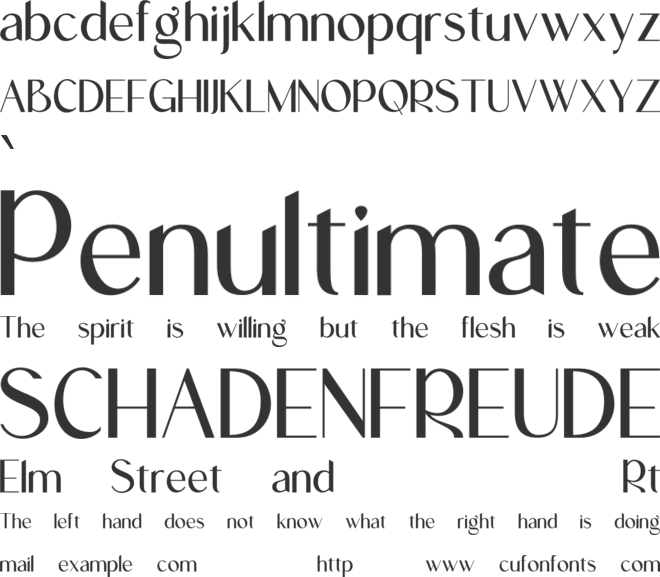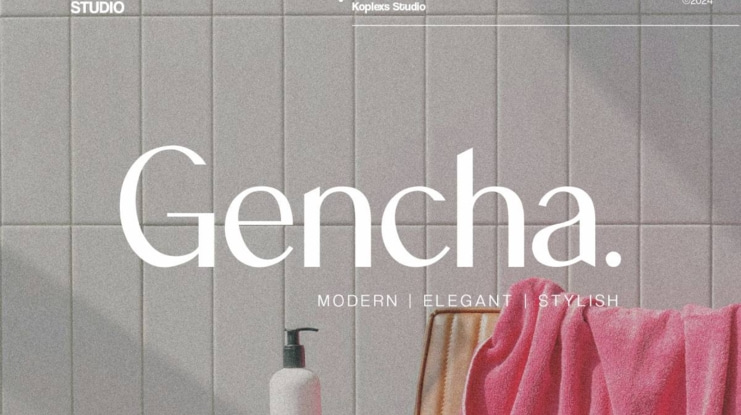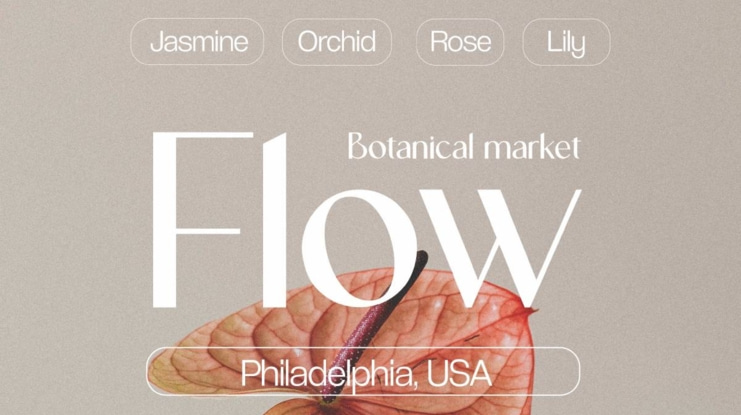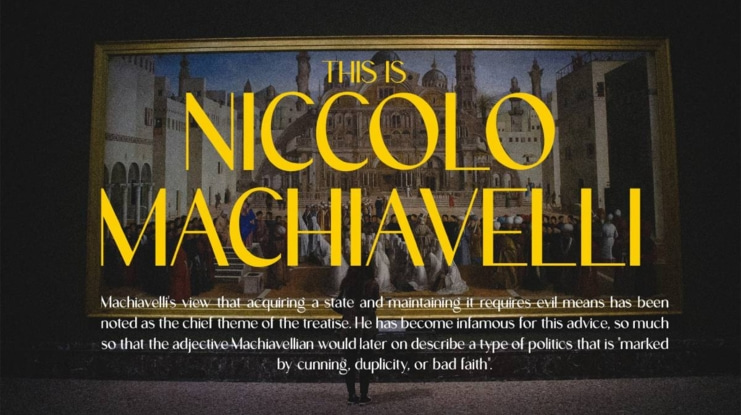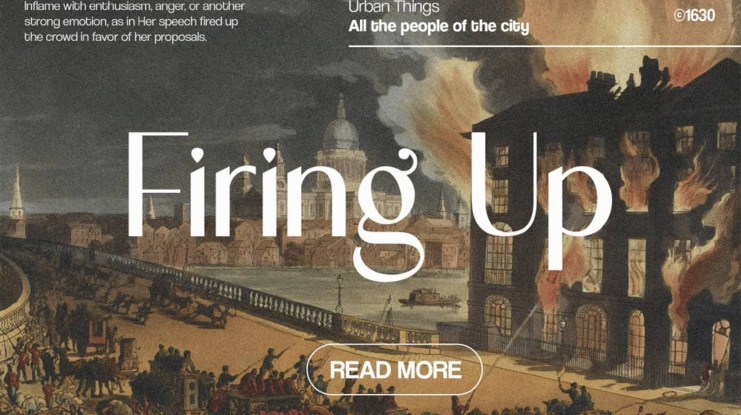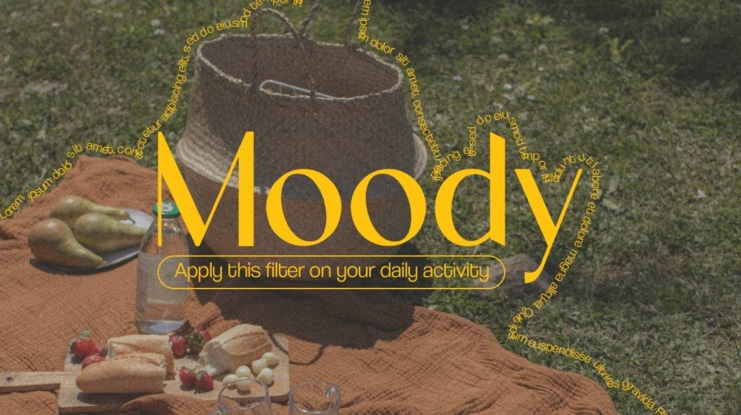
Gencha Font is a modern sans serif font designed to bring elegance, clarity, and style to any project. With clean lines and refined shapes, it works perfectly for branding, logos, cosmetics, editorial layouts, and luxury visuals. Its balanced structure makes it an ideal branding font, aesthetic font, and logo font, offering both sophistication and strong visual impact.
From magazines to product packaging, Gencha excels as a headline font and heading font, delivering bold presence and smooth readability. As one of the standout modern fonts, it performs beautifully as a cosmetic font, elegant font, and luxury font, making it suitable for fashion, beauty, lifestyle, and premium brand identities. Elevate your creative work with Gencha Font, a typeface crafted for style and professionalism.